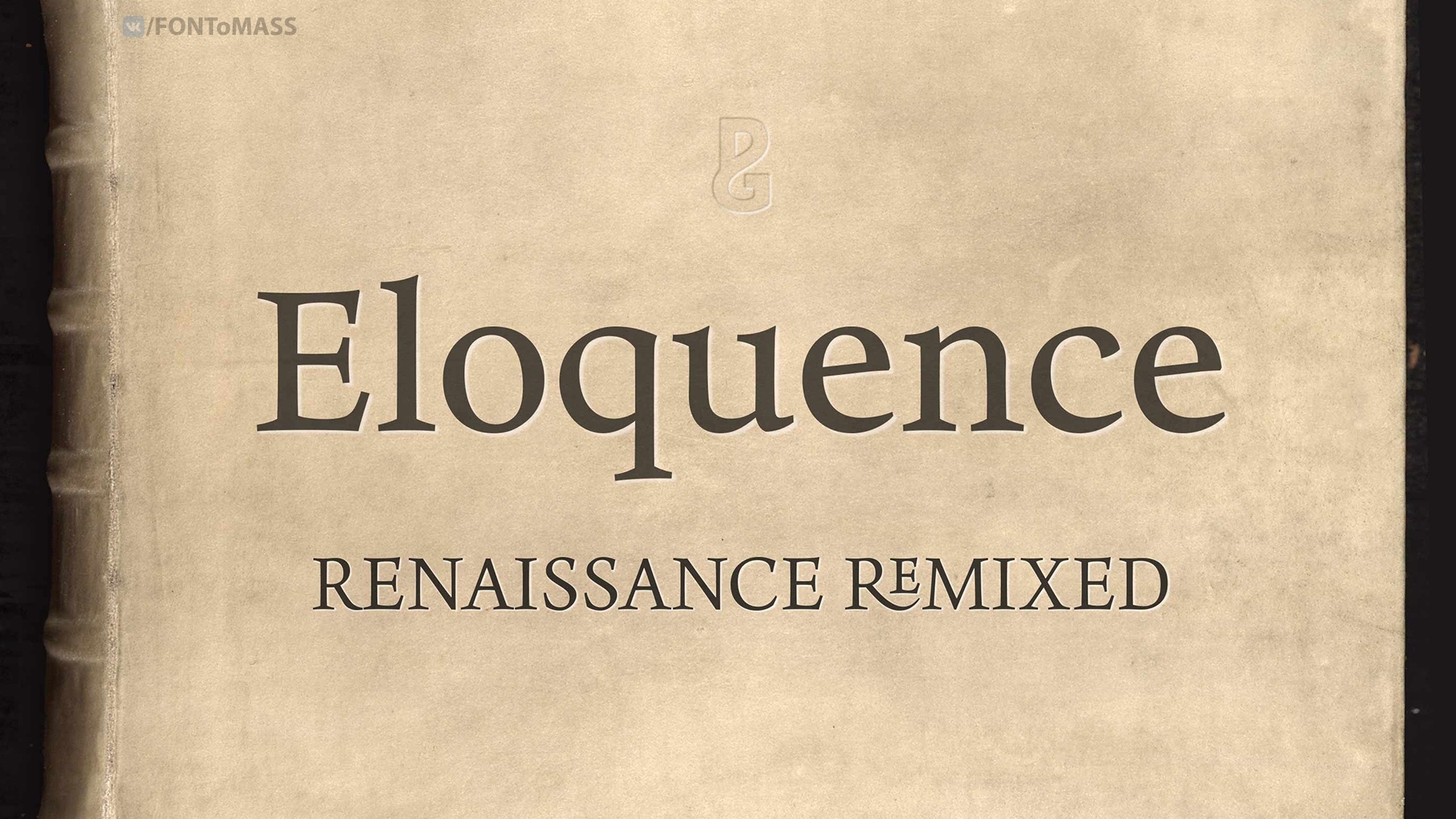
Eloquence Font
Eloquence Font is perfect for distinguished oratory presentations, prestigious academic publications, sophisticated legal documents, elegant literature collections, refined public speaking materials, classical rhetoric studies, distinguished university communications, authoritative scholarly journals, prestigious award ceremonies, and sophisticated intellectual discourse materials.
What makes Eloquence Font so exciting is its masterful embodiment of rhetorical sophistication and intellectual authority that captures the timeless power of articulate communication and the transformative influence of eloquent expression through expertly crafted typography. This intellectually designed typeface features refined letterforms with oratory-inspired proportions and eloquence-influenced character variations that immediately convey wisdom, authority, and the persuasive power of articulate communication. The font's sophisticated construction and rhetorical aesthetic create an instant sense of intellectual credibility and communicative excellence, making it ideal for projects that need to communicate scholarly authority, rhetorical mastery, and the life-changing power of eloquent expression to audiences seeking authentic intellectual experiences and meaningful communication excellence.
The Eloquence Font family typically includes multiple sophisticated weights and rhetorical styles, often featuring light through bold variations along with eloquently flowing italic versions and communication-optimized alternatives. Scholarly font collections frequently offer extensive character sets including academic symbols, rhetorical ornaments, and intellectual decorations that enhance the authentic scholarly aesthetic and provide designers with comprehensive tools for creating genuinely eloquent and intellectually sophisticated communications.
The intellectual nature of Eloquence Font makes it particularly effective for targeting demographics that value articulate communication and intellectual sophistication in their academic and professional pursuits. Academic publishers and intellectual institutions will find this font especially valuable for materials that must establish immediate scholarly credibility and connect with audiences seeking authentic intellectual experiences and meaningful rhetorical engagement.
What sets Eloquence Font apart is its ability to convey intellectual authority while maintaining the accessibility necessary for effective scholarly communication and public intellectual discourse. This balanced characteristic makes it suitable for both formal academic applications and public intellectual contexts where projecting scholarly competence and maintaining communicative clarity must work together harmoniously.
Professional designers recognize that Eloquence Font brings invaluable intellectual credibility to projects across industries including academic publishing, scholarly institutions, intellectual organizations, and communication excellence training. Its sophisticated character and rhetorical appeal make it essential for organizations whose mission centers on advancing intellectual discourse, promoting scholarly excellence, and creating meaningful connections between eloquent communication and intellectual achievement.
The systematically crafted intellectual authenticity of Eloquence Font ensures consistent scholarly messaging across all eloquence-focused communication applications while honoring the fundamental principles of rhetorical excellence and intellectual sophistication in contemporary typography.